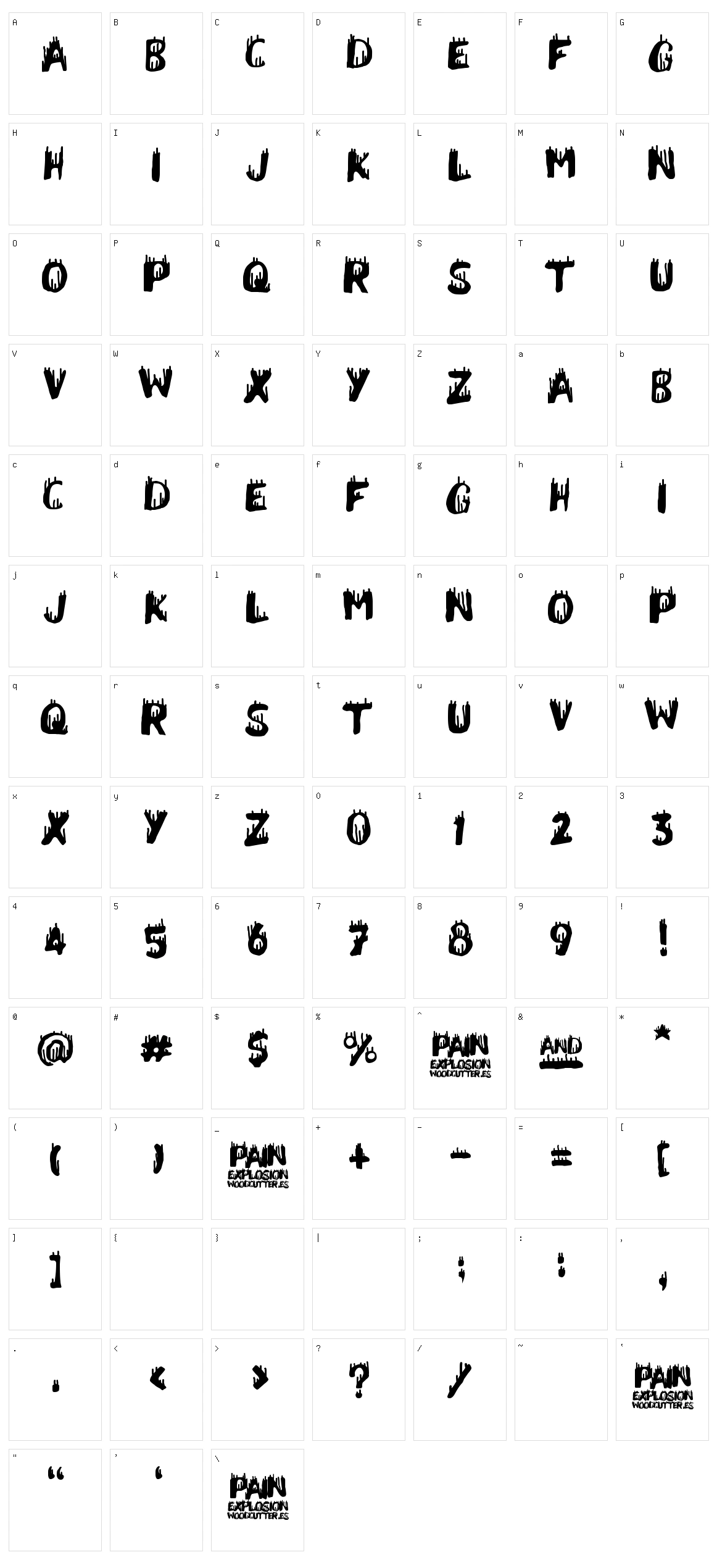
The free font Pain Explosion is carefully designed by Woodcutter, showcasing a thoughtful balance of creativity and usability and falls under the Horror font style. When you download the ZIP file, it contains only 20.78 KB of font files, making it lightweight and quick to download. Please review the license details below to understand permitted usage and distribution rights. If license information is not available, we recommend using this font for personal projects only or contacting the author directly for commercial usage permissions.